Explore 6 Luxury Fonts for logos Free Download, I have it all to capture the mood for your project.
Merge sophistication with clarity with these luxury typefaces, perfect for introducing a hint of class to premium logos, banners, and online sites. These fonts are available in a range of designs, from classic serifs to contemporary sans-serifs, prepared to enhance the value and sophistication of your captivating creative endeavors.
Mringan Font
Mringan is modern serif typeface inspired by the classic family. It combines serif and sans-serif elements, making it versatile and timeless.
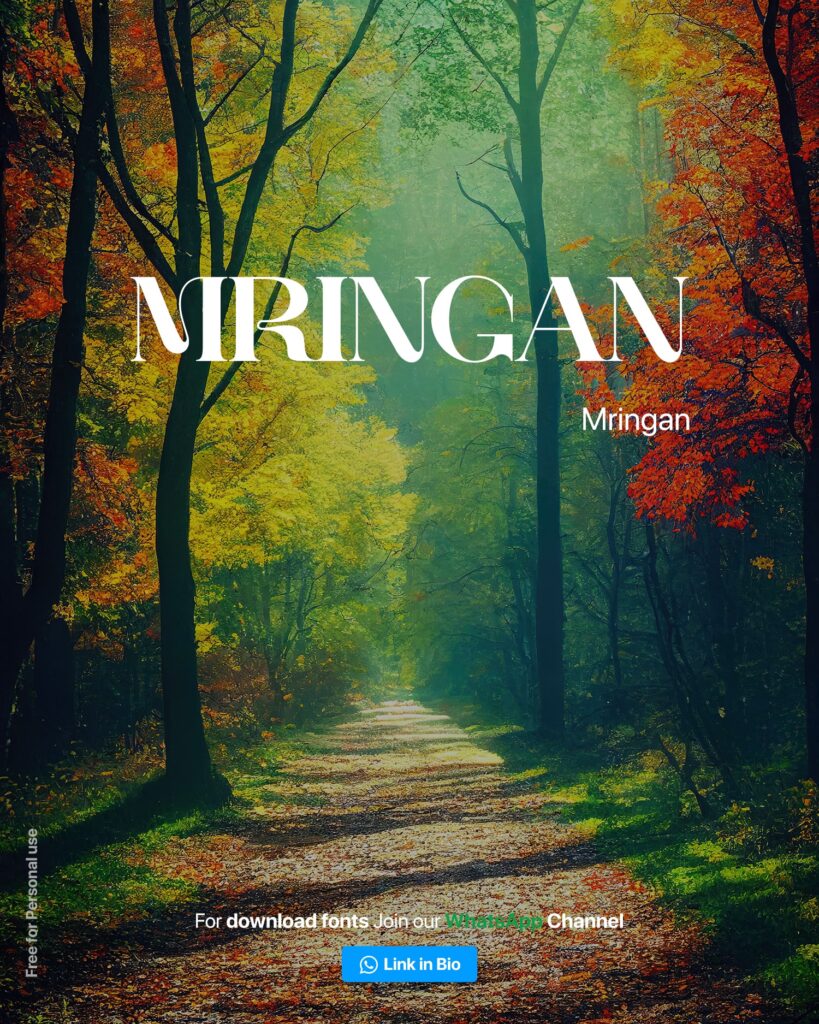
Kailsix Font
Kailsix is a sophisticated and elegant script font that exudes luxury. Its graceful curves make it ideal for luxury invitations, logos, and branding materials.
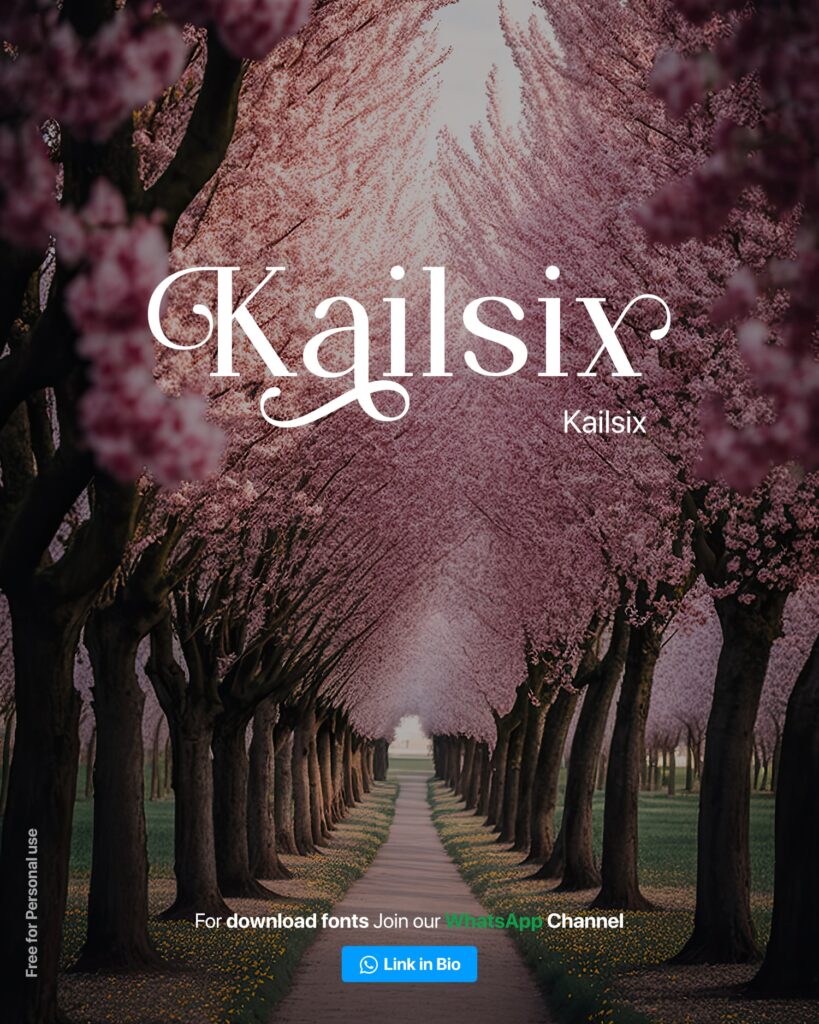
Avifan Font
Avifan is a sleek and stylish sans-serif typeface with a modern, minimalist aesthetic. Its clean lines make it perfect for luxury fashion brands, high-end tech products, and premium packaging.
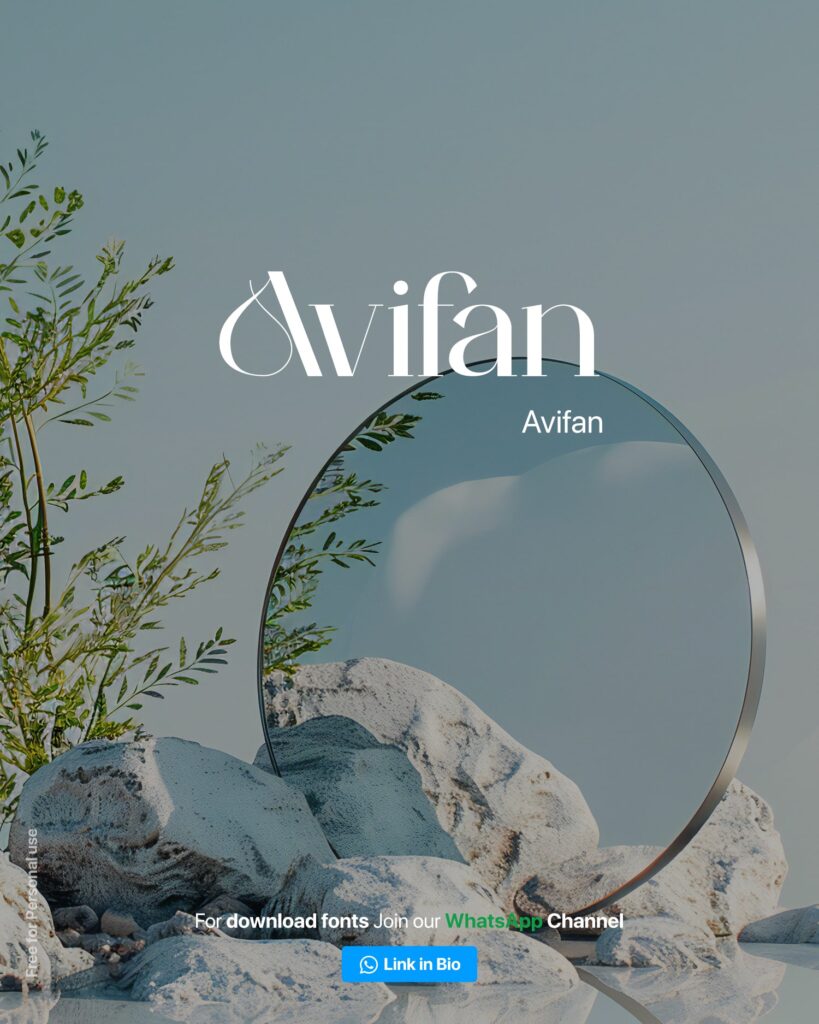
Brillant Font
Brillant is classic serif font is synonymous with luxury and high fashion. Its a timeless choice for luxury magazines, luxury branding, and high-end packaging.
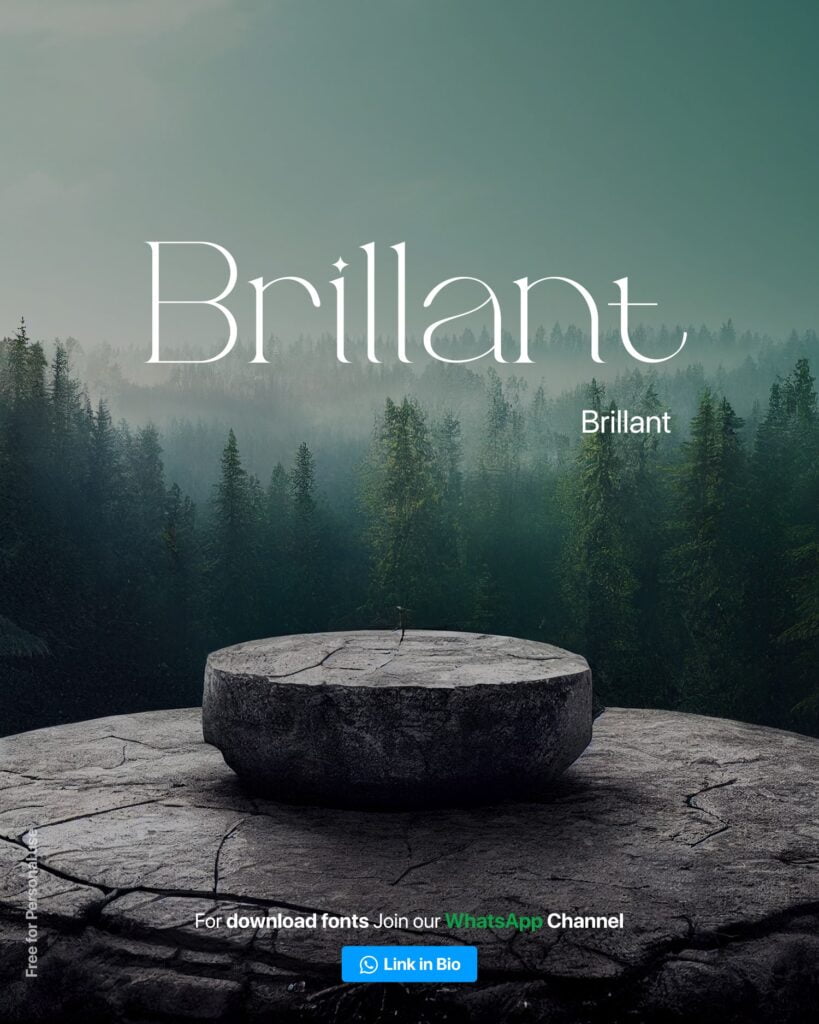
Bagien Font
Bagien Absolute is a bold, retro-inspired serif font that brings a touch of vintage luxury to your designs.
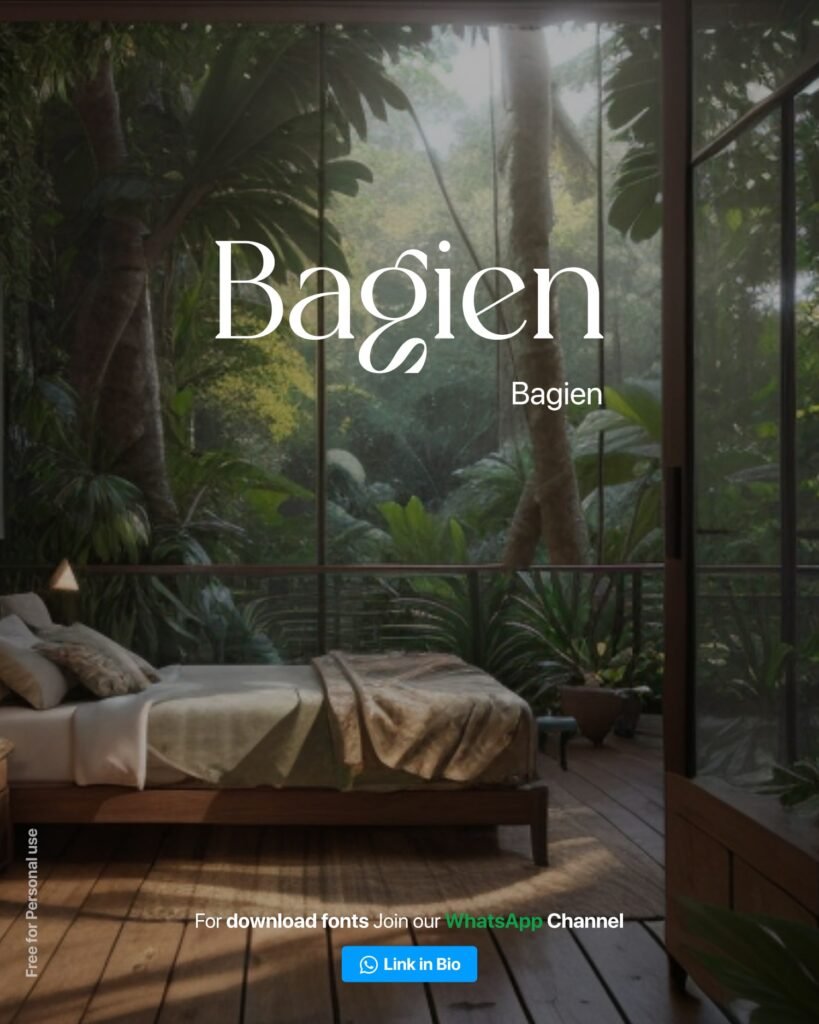
Megalky Font
Megalky is a refined and elegant serif font that combines classic elements. It exudes a sense of sophistication and timeless beauty.
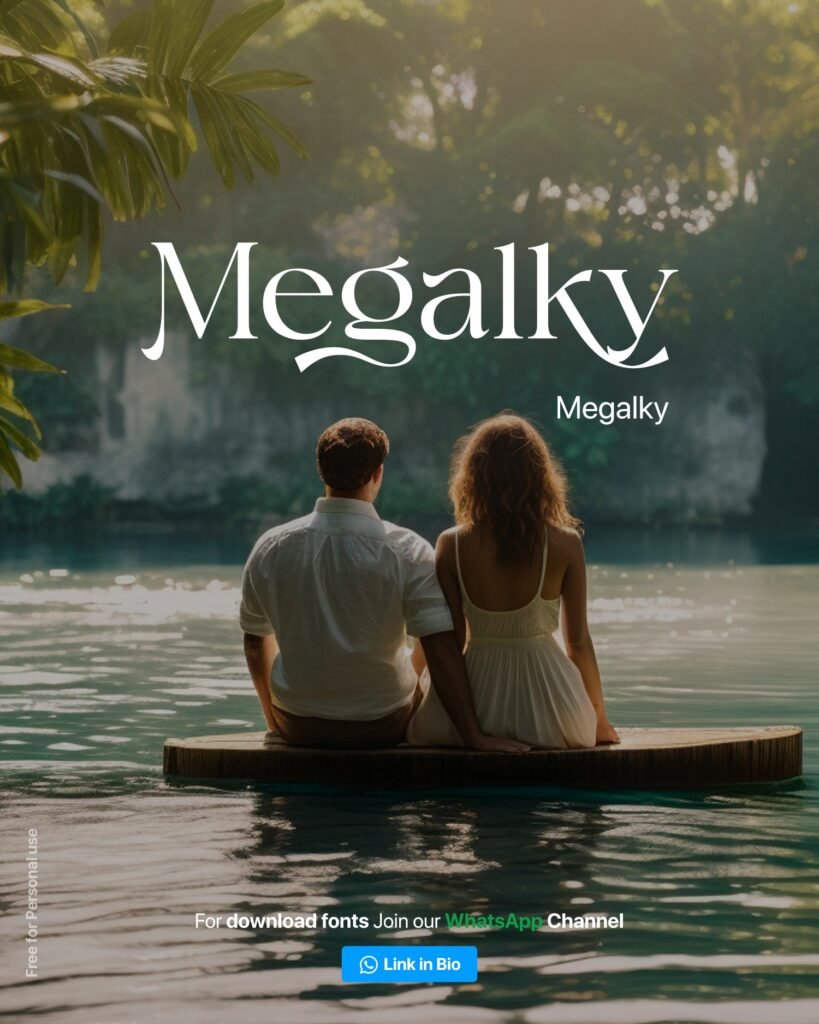
Incorporating these fonts into your designs can significantly enhance their luxurious appeal. Each font brings its unique personality and charm, ensuring your projects exude elegance and sophistication. Whether you’re designing for high-end fashion, luxury branding, or sophisticated editorial layouts, these fonts are sure to make a lasting impression.